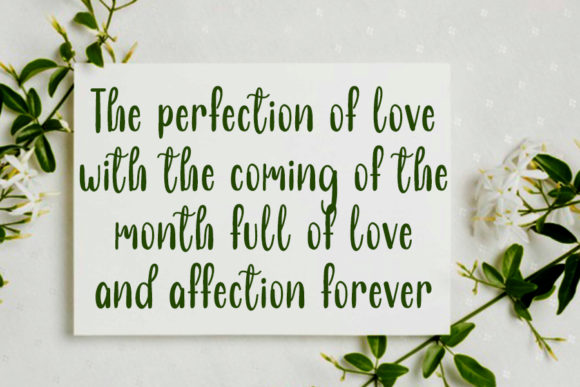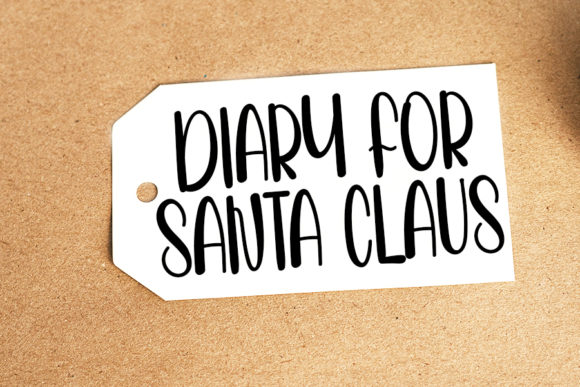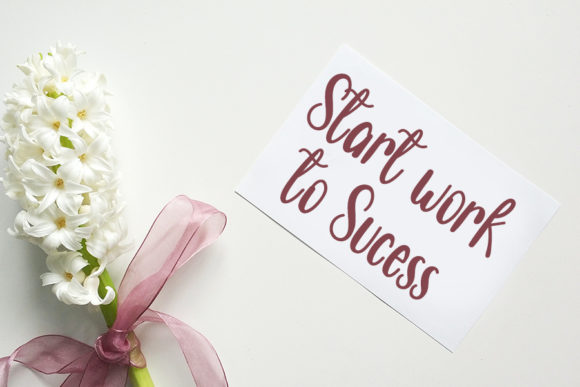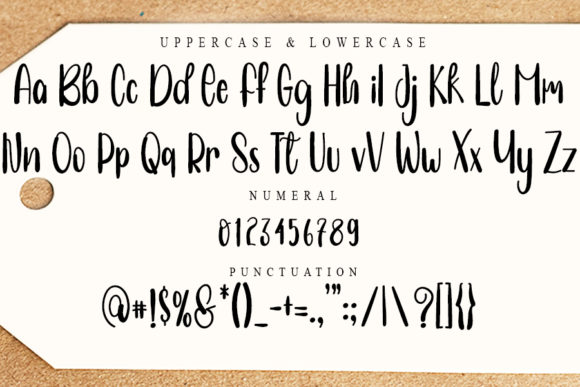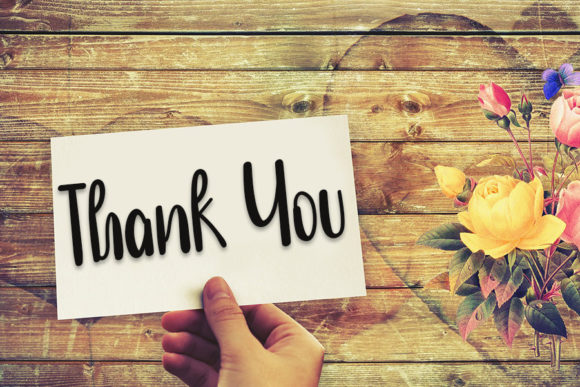
Introduction to Morning Santana Font
Morning Santana is a thin lettered and neat handwritten font.
It can be used for various purposes such as logos, headings, t-shirts, letterhead, signage, labels, news, posters, badges and so much more .
Key Features of Morning Santana Font
Why Choose Morning Santana Font?
Morning Santana Font offers exceptional quality and versatility, making it a valuable addition to your design toolkit. Whether you’re creating for personal projects or commercial use, Morning Santana Font delivers professional results.